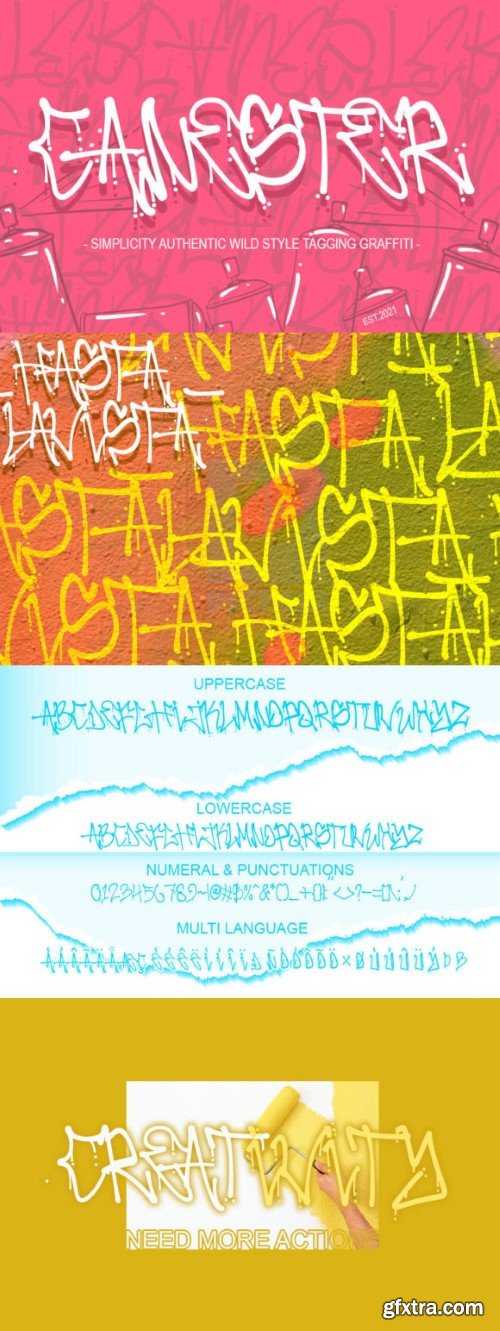
罐子字体
Canester is creepy, graffiti-styled display font that has a street art vibe. This font is suitable for designs such as t-shirts, sportswear, logos, advertisements, clothing, and more.